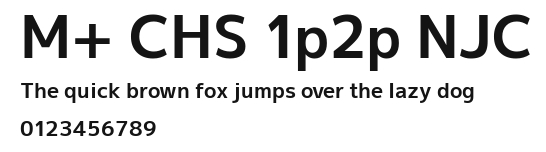
• Font Name: M+ CHS 1p2p NJC
• Description: 这个版本的M+由“JK Gothic L”字体(基于2014版M+2c)修改而来,并非直接从原版M+修改。曾命名为“JK黑体”。后将假名部分以及西文部分替换为2016版M+ 2p(少数字符如“M”、“g”等采用1p)之后,改名为“简体中文M+”。
About M+ CHS 1p2p NJC.otf
M+ CHS 1p2p NJC.otf is a modern, elegant sans-serif font designed for ultimate readability and visual harmony. Perfect for branding, headlines, web design, and print materials.